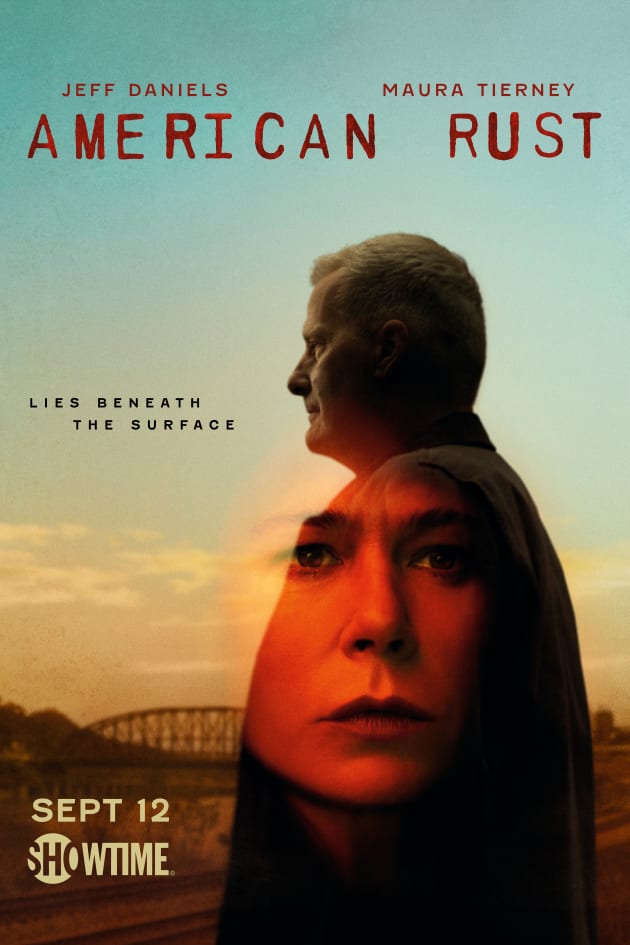
American Rust Font
DramaAmerican Rust is a television series based on the novel of the same name by Philipp Meyer. It is described as a crime drama set in a small town in Pennsylvania.
The TV series title is designed based on a font similar to Printf, a single weight typewriter typeface created by Ray Larabie. The rest of the text on the poster is written in Fenwick Bold, a sans-serif font also created by Ray Larabie.